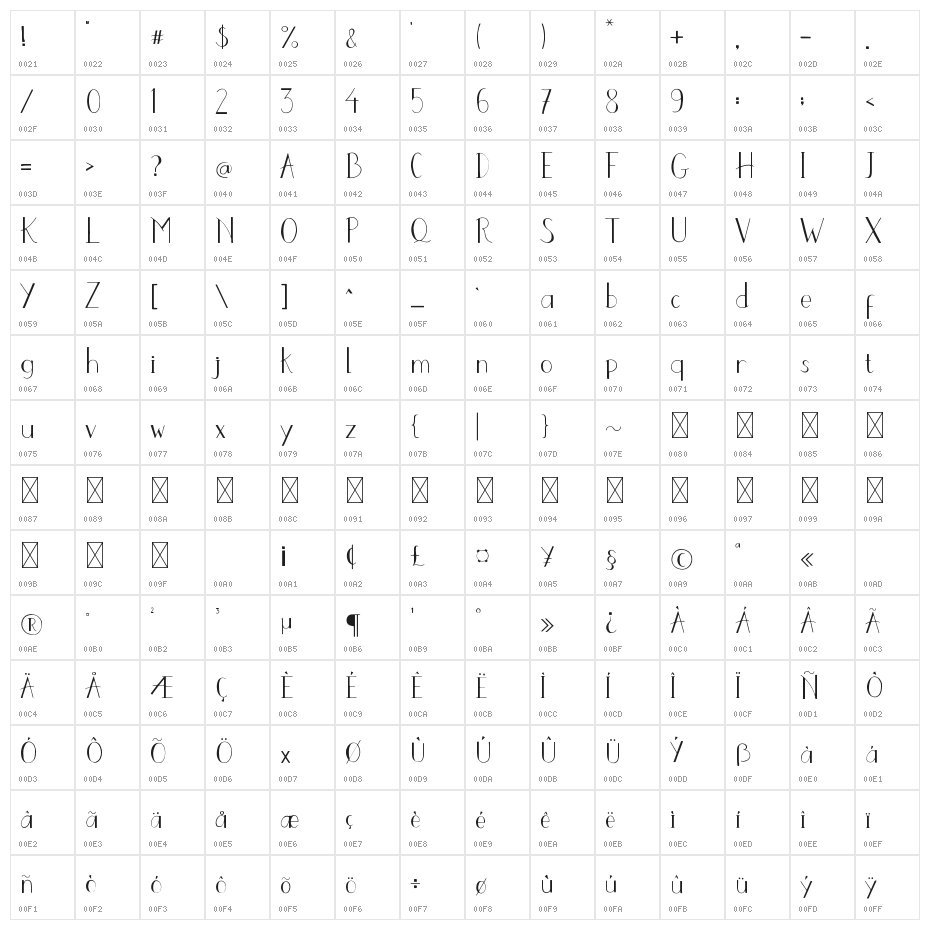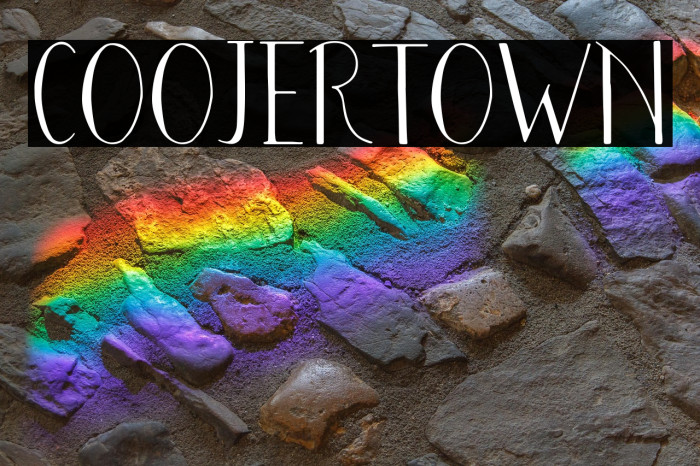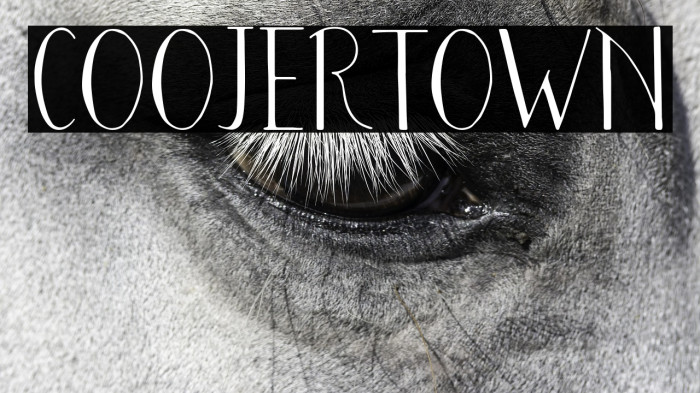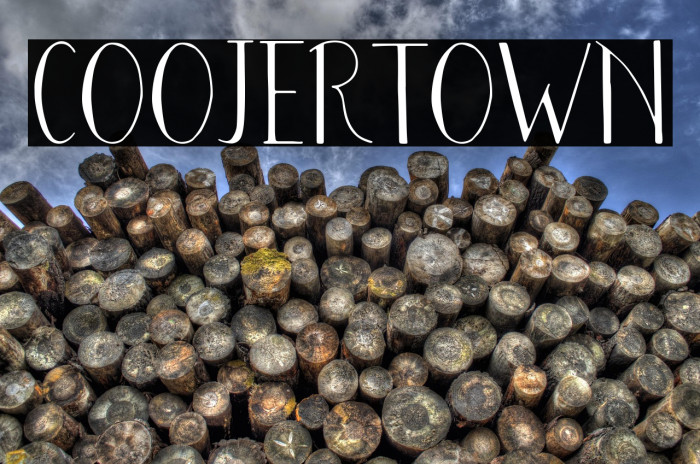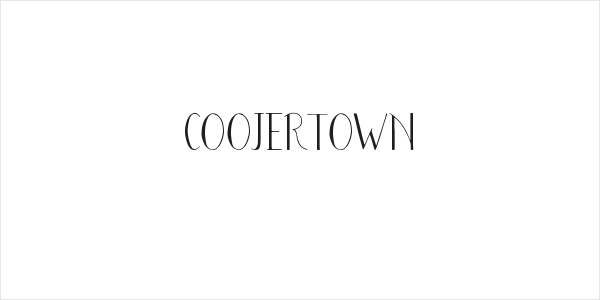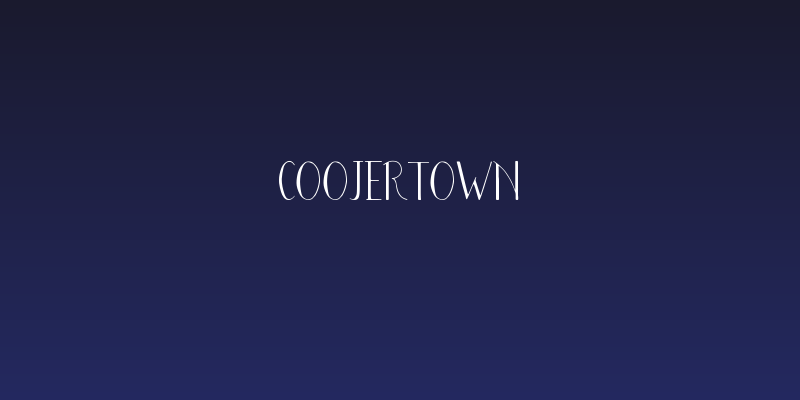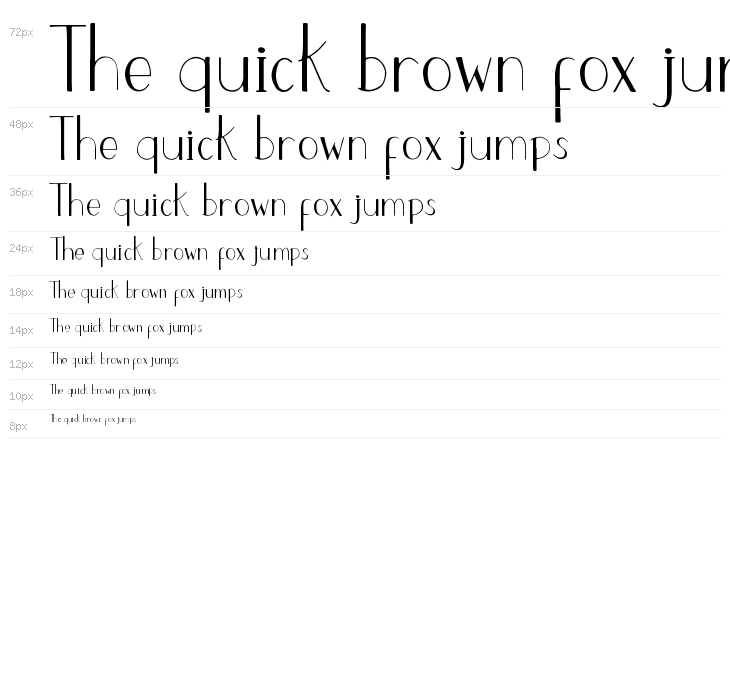
COOJERTOWN Font
COOJERTOWN Description
This font features a unique and artistic design with a blend of geometric and organic shapes. The uppercase letters are tall and slender, with some characters exhibiting playful curves and angles, such as the 'B' and 'R'. The lowercase letters maintain a consistent style, with a slightly more rounded appearance. The numerals are distinct and easily readable, while the special characters complement the overall aesthetic. This font's combination of elegance and creativity makes it suitable for a variety of design projects.
| Use Case | Logos, Headlines, Posters |
| Proposed Projects | Ideal for branding, posters, invitations, and artistic projects that require a distinctive and stylish touch. |